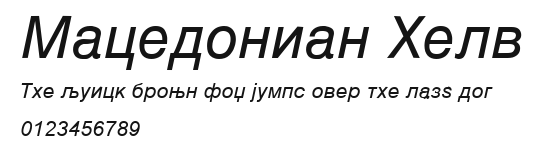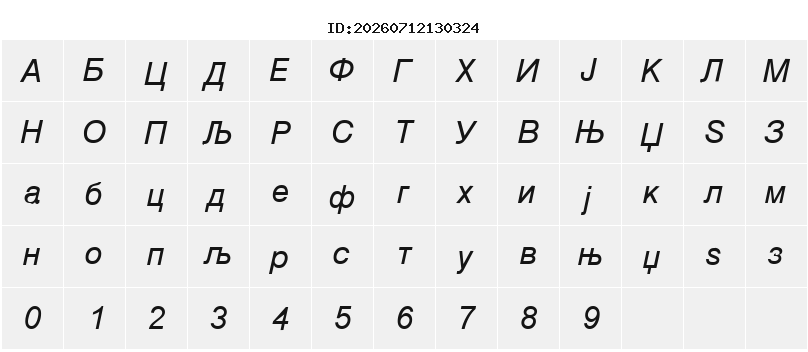
• Font Name: Macedonian Helv
• Full Font Name: Macedonian Helv Italic
About Macedonian Helv.ttf
Macedonian Helv.ttf is a modern, elegant sans-serif font designed for ultimate readability and visual harmony. Perfect for branding, headlines, web design, and print materials.